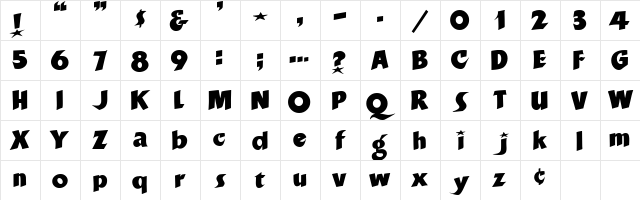
4 Vasona DNA Regular Free Font
4 Vasona DNA Regular
Design Context for 4 Vasona DNA
4 Vasona DNA is a composed and adaptable typeface that performs quietly and consistently across a wide range of design contexts.